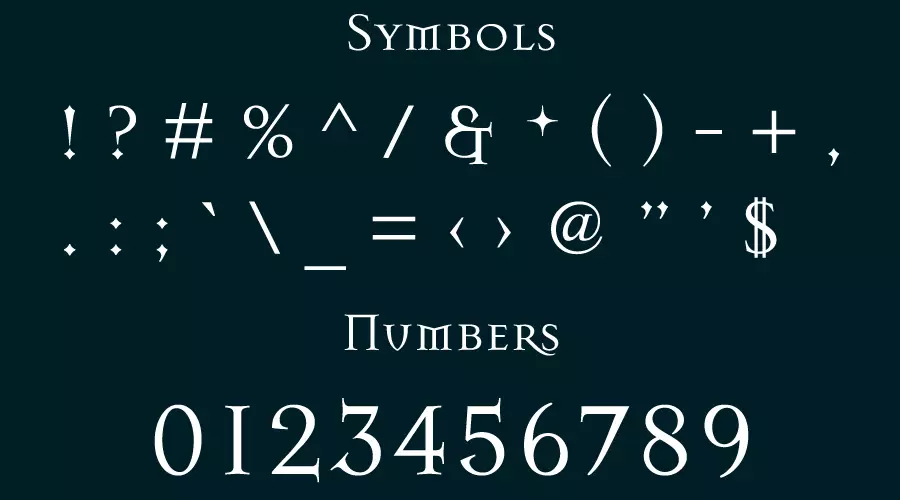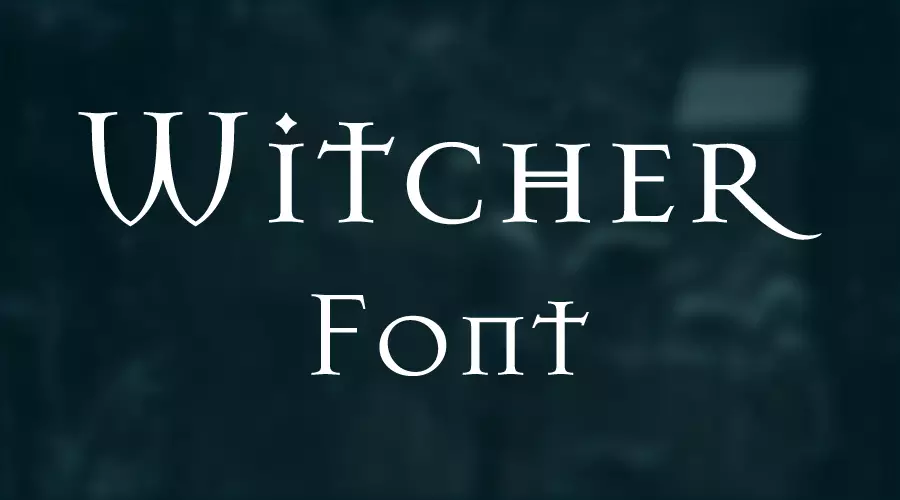
Witcher is a translation of the Slavic term vedmak, which refers to a “man witch.” witcher (plural witchers) a male witch. They are not always witches or wizards; they are monster slayers, hence the name “witchers.” Witchers are individuals who possess magic, indeed, but this magic results from factors such as their education and the potions they drink, which are theoretically deadly to the majority of people.
It’s likely that Jonathan Barnbrook’s 1992 Mason Serif Regular design was the Witcher font used for the Withcher logo.
The Witcher is an action role-playing game released in 2007 for Microsoft Windows and OS X by CD Projekt Red (Polish: Wiedmin [vjdmjin] (Warlock)). It was based on Polish novelist Andrzej Sapkowski’s fantasy book series The Witcher. Atari released the action role-playing hack and slash video game in 2009. The Wicher 2: Assassins of Kings, the sequel, was published in 2011.
Witcher Font Details
Teweka designed and released THE WITCHER, a stylish and energetic serif typeface. You may use The Witcher, a sophisticated serif font, to create a variety of chic and contemporary characters.
A beautiful script font that has been skillfully created to become a great favorite is called Witcher Handwriting. It still has a swanky calligraphic sense about it, but feels modern and new. Get smitten by it and elevate your projects to the next level!
Common Uses
For instance, the Witcher typeface is ideal for Halloween-related activities. With this typeface, one can make an eye-catching design that they can display to their friends and coworkers to frighten them away. This typeface can be used to create a wide range of designs, including those for printing on t-shirts, posters, flyers, logos, and more.
The Witcher Font at a Glance
| Designer | Teweka |
| Font Type | Serif Font |
| Inspired by | Witches in the game |
| Source | Jonathan Barnbrook’s 1992 Mason Serif Regular design |
Mason Serif Regular is the font style most frequently used in publications and packaging for The Witcher. It can be found in the fansite kit.
Mason Typeface in Use
The Prince of Mist, The Quantum Enigma, Bionic, The Golden Compass, To Sin with a Viking, Dorian Gray, Creed, Wild Goose Chase, Planescape: Torment, Loyal to the Game, The Quantum Enigma, The Witcher, and many other logos, movie posters, album covers, etc. all feature the Mason typeface in addition to The Witcher.